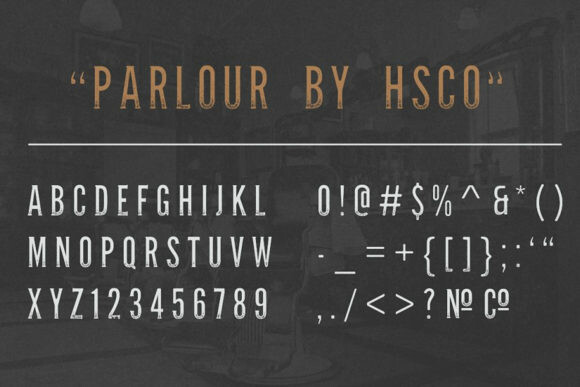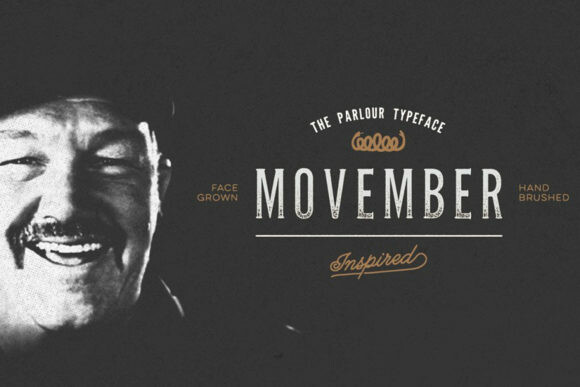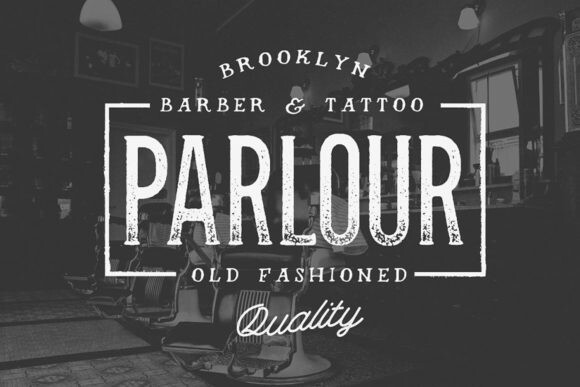
Parlour Font
Designer: Hustle Supply Co
Parlour Font is a great display font. It features a strong and versatile texture that makes it perfect for logos, social media posts, flyers, branding and stationery. Get inspired with its unique look and create amazing projects!